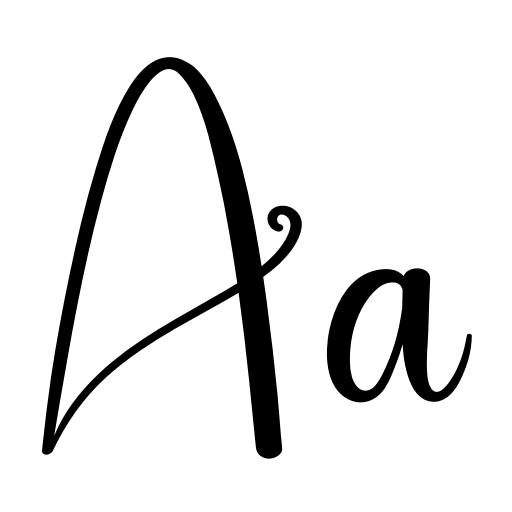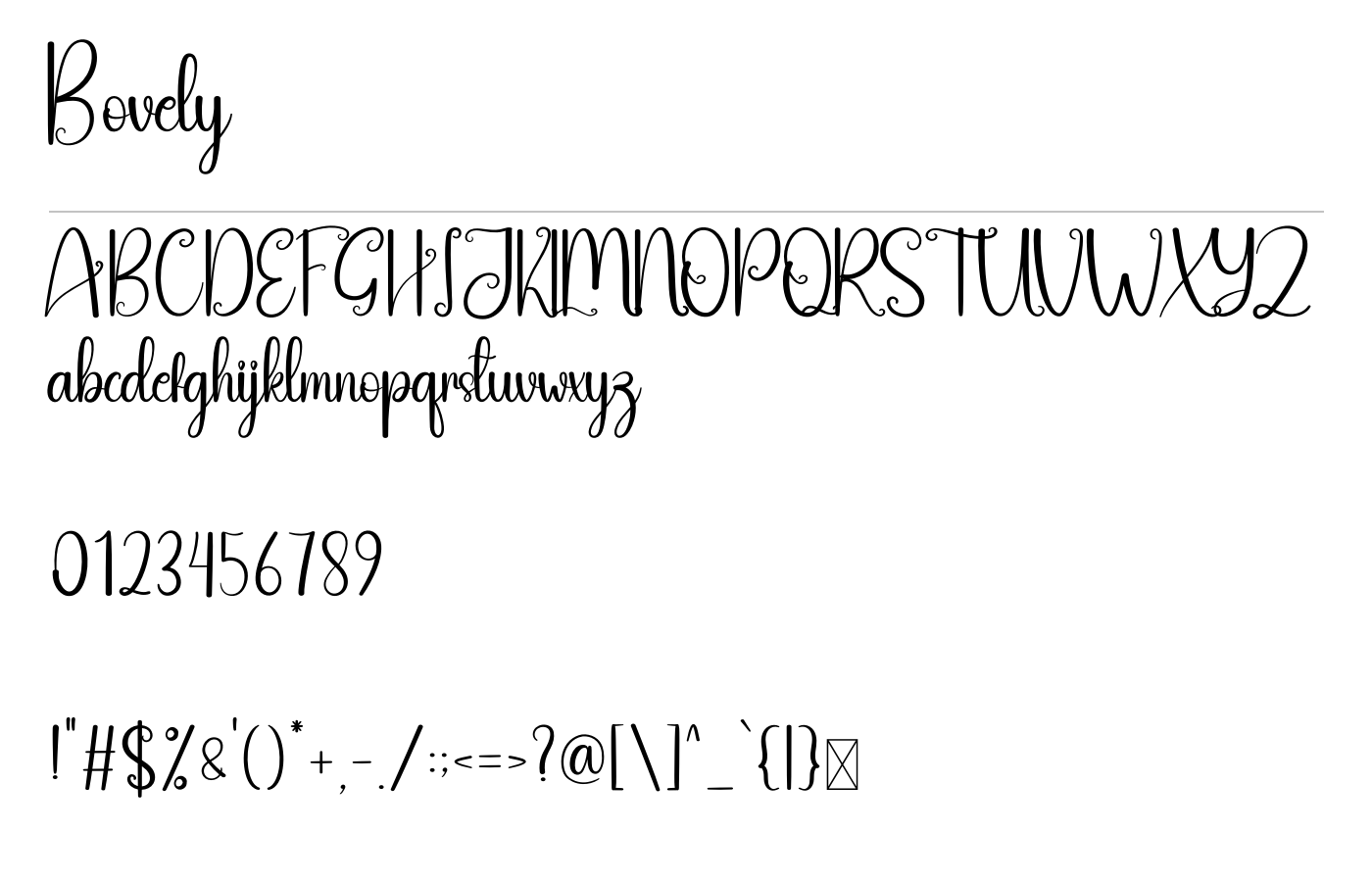
Bovely Font is a playful and elegant script typeface characterized by its tall, slender letterforms and decorative swirls on uppercase letters. Its delicate, hand-drawn style with consistent stroke weight makes it ideal for creative projects that need a personal, whimsical touch. This font works beautifully for branding, invitations, and headlines that seek a charming and sophisticated aesthetic.
Bovely Font
About Bovely Font